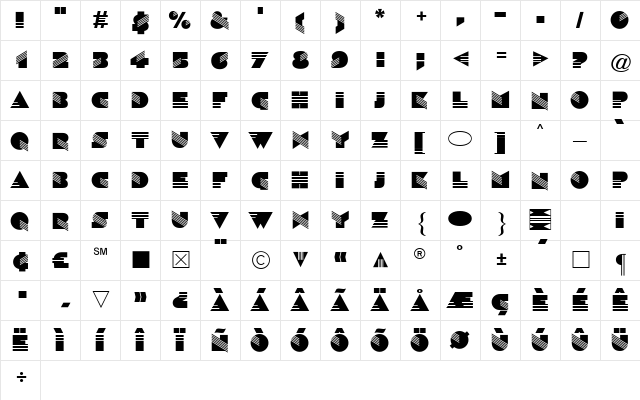
Cg Medium
Complete Cg Medium glyph index. Displaying only characters natively supported by Cg Medium font.
Design Context for Cg
Cg is a composed and adaptable typeface that performs quietly and consistently across a wide range of design contexts.